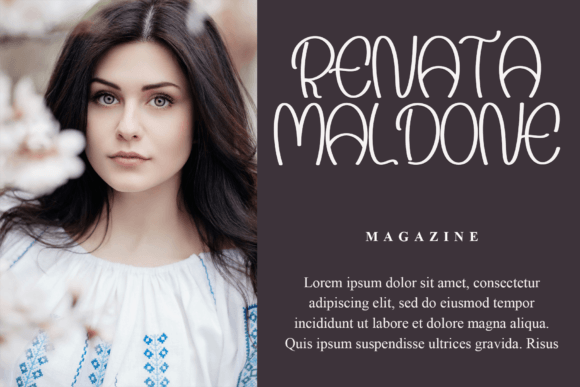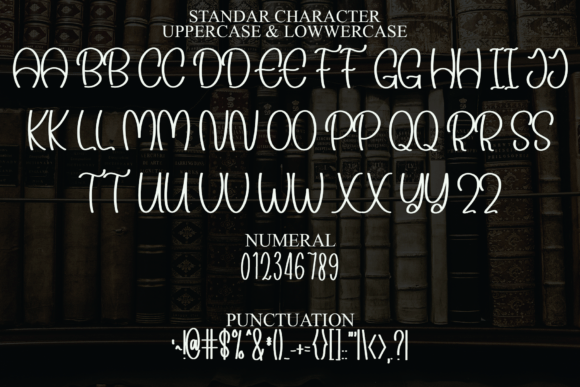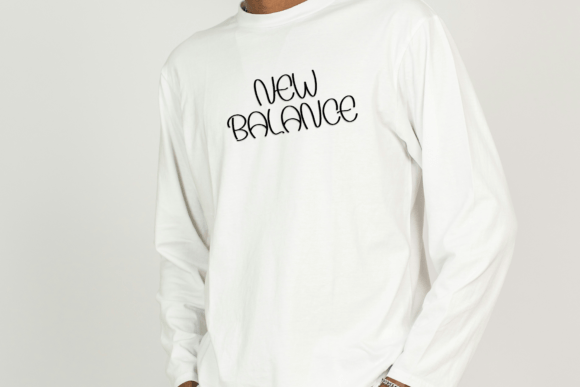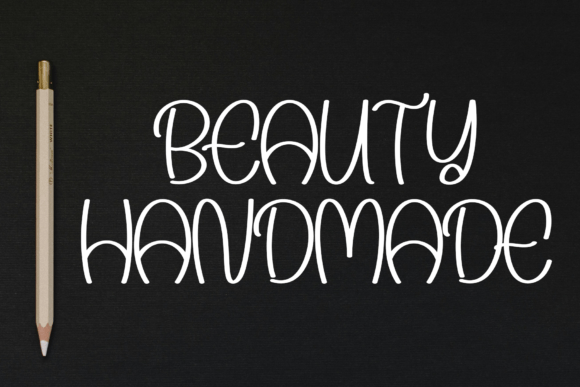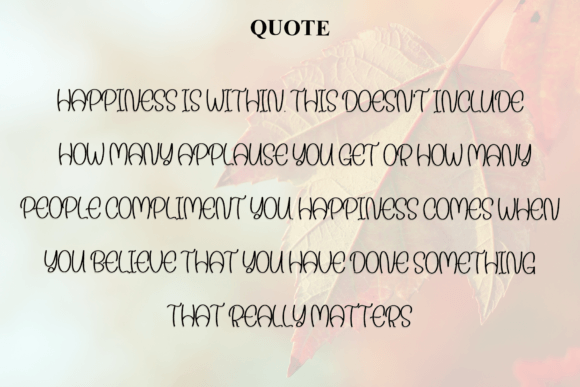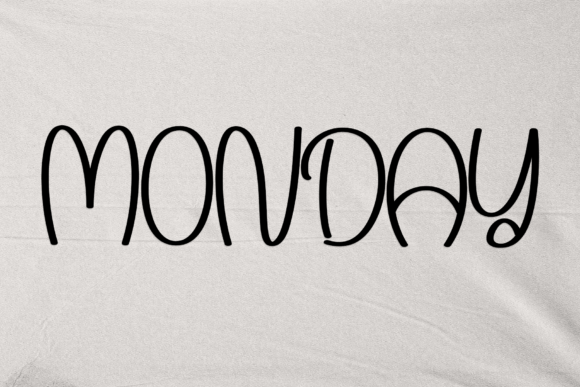
Introducing Excited Font: Elevate Your Designs with Elegance and Sophistication
Are you on the hunt for a font that exudes class, elegance, and modernity? Look no further than Excited Font, a stunning display font that is sure to take your designs to the next level. With its refined and sophisticated look, Excited Font is perfect for a wide range of applications, from logos and branding to invitations, stationery, wedding designs, social media posts, and beyond.
A Font that Exudes Elegance and Sophistication
Excited Font boasts a beautiful and refined design that is sure to impress. Its elegant and modern look makes it an ideal choice for designers and crafters who want to add a touch of sophistication to their work. Whether you’re creating a logo, branding materials, or marketing collateral, Excited Font is the perfect choice.
One of the best things about Excited Font is its versatility. This font can be used for a wide range of applications, including:
- Logos and branding: Create a lasting impression with a custom logo that exudes elegance and sophistication.
- Invitations and stationery: Add a touch of class to your invitations, business cards, and other stationery.
- Wedding designs: Make your wedding designs truly unforgettable with Excited Font.
- Social media posts: Elevate your social media posts with a font that is sure to grab attention.
Excited Font is PUA (Private Use Area) encoded, which means that you can access all of the amazing glyphs and ligatures with ease. This makes it easy to get the most out of your font and create truly unique and eye-catching designs.
PUA encoding is a system that allows font designers to include additional characters and glyphs in their fonts. This means that Excited Font comes with a wide range of extra characters and ligatures that you can use to add an extra layer of creativity to your designs.
Why Choose Excited Font?
So why choose Excited Font over other fonts on the market? Here are just a few reasons:
- Elegant and modern design: Excited Font boasts a truly stunning design that is sure to impress.
- Versatility: This font can be used for a wide range of applications, making it a great addition to any designer’s toolkit.
- PUA encoded: With PUA encoding, you can access all of the amazing glyphs and ligatures with ease.
Tips for Using Excited Font
Here are a few tips for getting the most out of Excited Font:
- Experiment with different sizes and colors: Excited Font looks great in a variety of sizes and colors, so don’t be afraid to experiment.
- Pair it with other fonts: Excited Font pairs well with a wide range of other fonts, so try pairing it with some of your favorites.
- Use it for headlines and titles: Excited Font is perfect for headlines and titles, so try using it to add a touch of elegance to your designs.